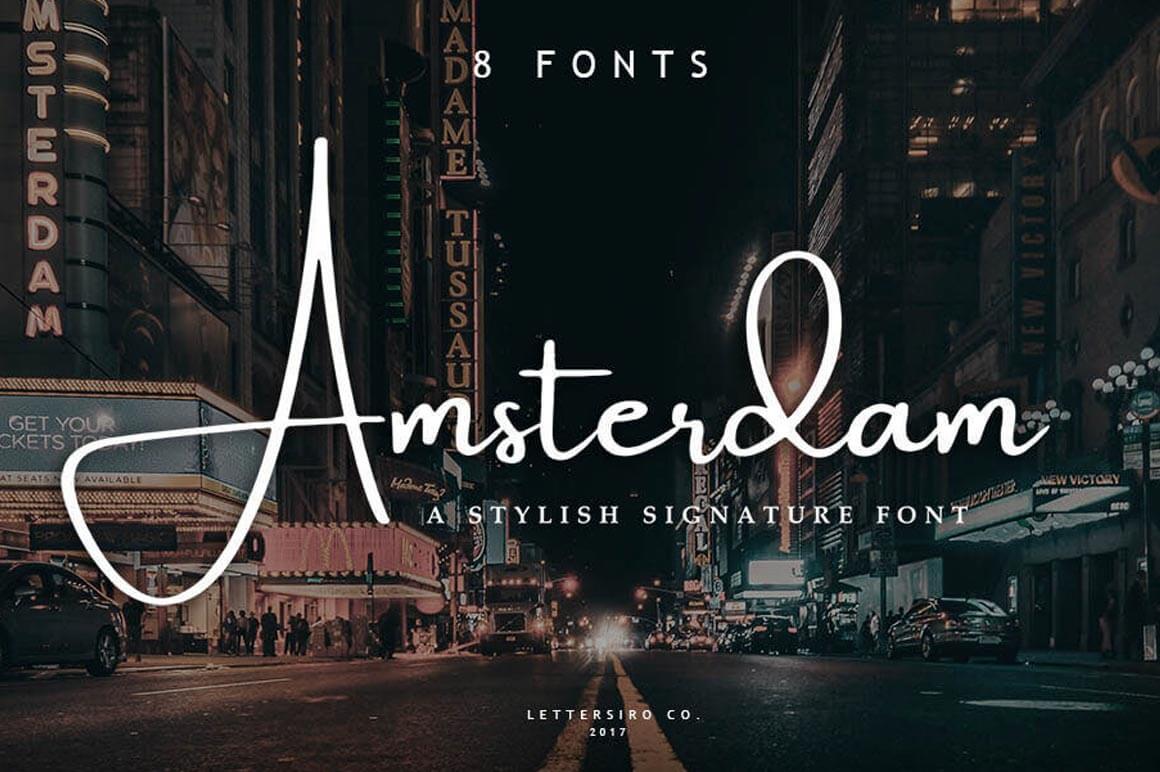
Add some serious style to your typeface toolbox with the Amsterdam Font Family! This elegant signature font features four fabulous typefaces, each offered in a regular and slanted variety, meaning you’re getting 8 different fonts! From business cards to photo watermarks, this family is here to elevate your work to the highest level.
- 8 beautifully elegant signature fonts in 1 stylish deal.
- Add more style to each font with OpenType Features – stylistic alternates, lowercase initial form and final form, ligatures.
- Multilingual support – spread your message globally.
- The perfect font choice for powerful projects – watermarks, signatures, photography, logos, business cards, quotes, album covers.